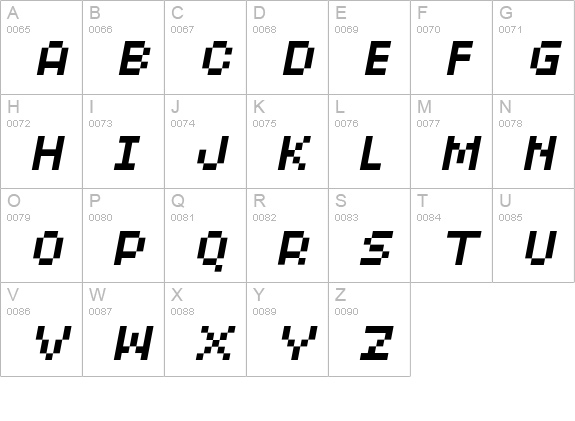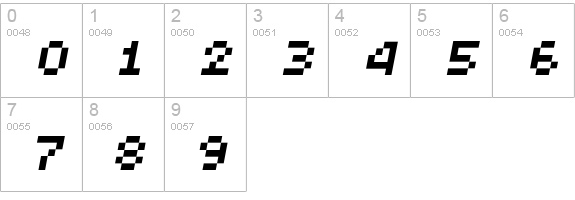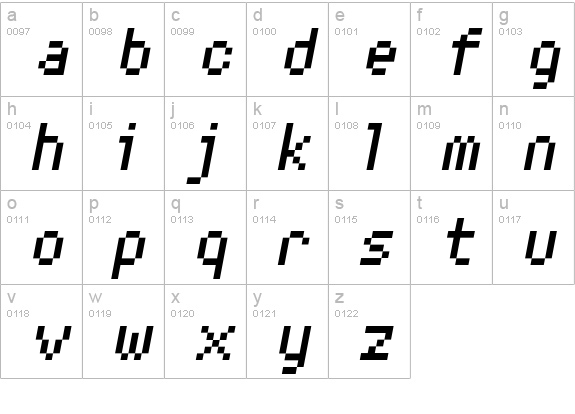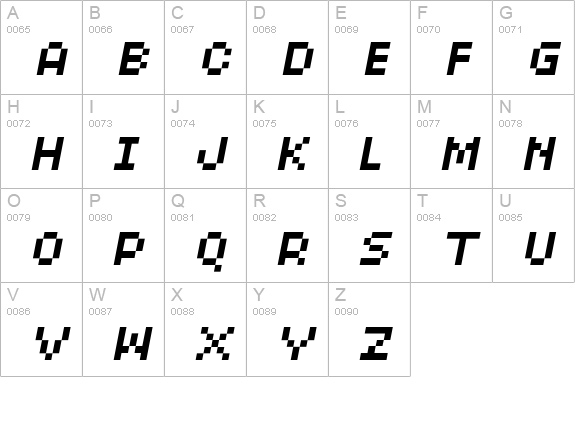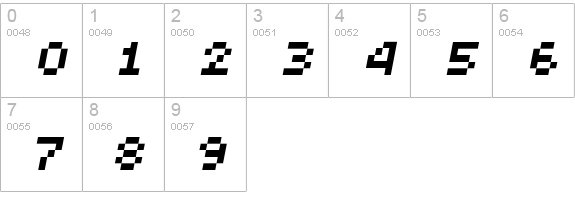
XERXES-SIXOBLIQUE Font Details
Introducing XERXES-SIXOBLIQUE font - a unique and modern typeface that is sure to make a statement in your designs. With its sleek and futuristic design, XERXES-SIXOBLIQUE is perfect for adding a touch of sophistication to any project. The sharp angles and bold lines of this font give it a dynamic and eye-catching appearance that will captivate your audience. What sets XERXES-SIXOBLIQUE apart is not only its striking design but also the fact that it is completely free to download. Yes, you read that right - this stunning font is available for free at FontsMarket.com. Whether you're working on a website, poster, logo, or any other design project, XERXES-SIXOBLIQUE is a versatile font that will elevate your work to the next level. Don't miss out on the opportunity to add XERXES-SIXOBLIQUE to your font collection. Download it today and unleash your creativity with this exceptional typeface.